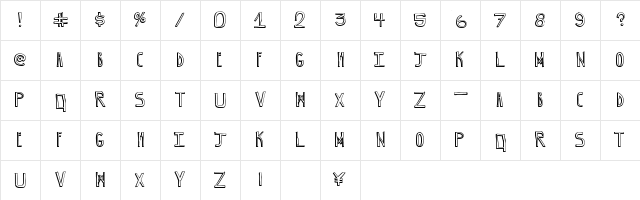
GrapeBlaster Regular
Foundry: Xerographer Fonts
Designer: Max Infeld
Design Context for GrapeBlaster
GrapeBlaster is a composed and adaptable typeface that performs quietly and consistently across a wide range of design contexts.